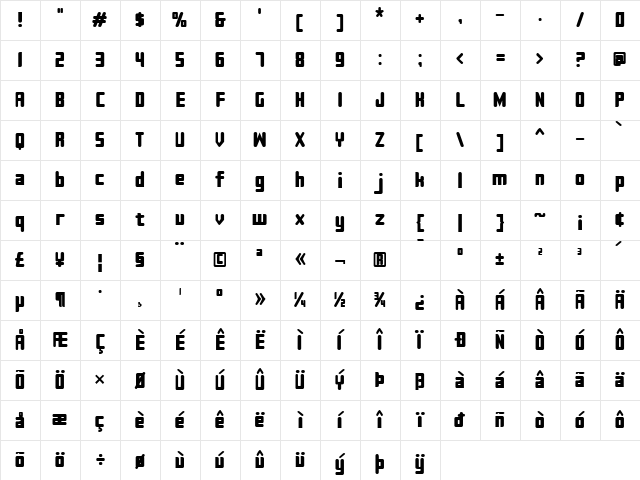
Sujeta Bold Free Font
Sujeta Bold
Sujeta Family
Design Context for Sujeta
Sujeta is a composed and adaptable typeface that performs quietly and consistently across a wide range of design contexts. Its bold stroke weight gives it real presence on the page.